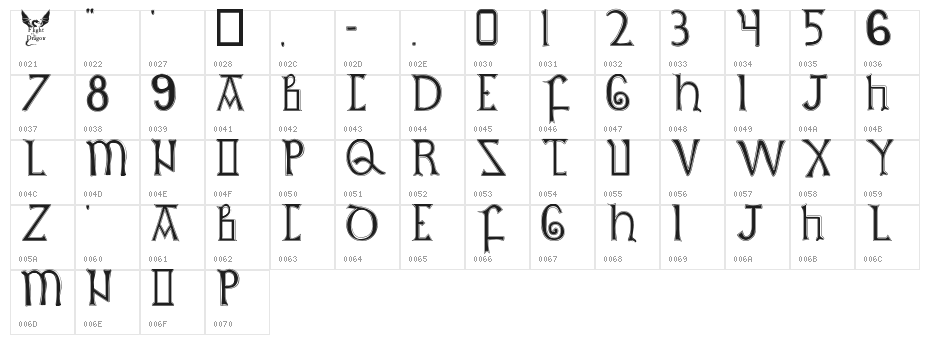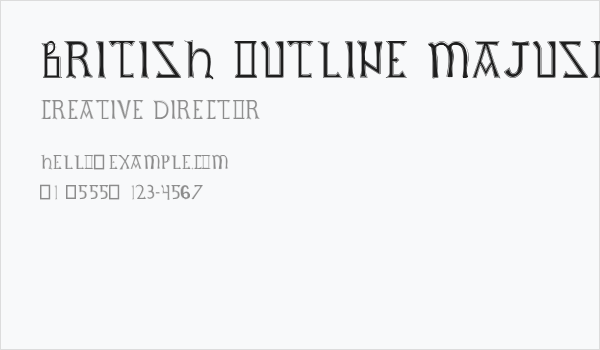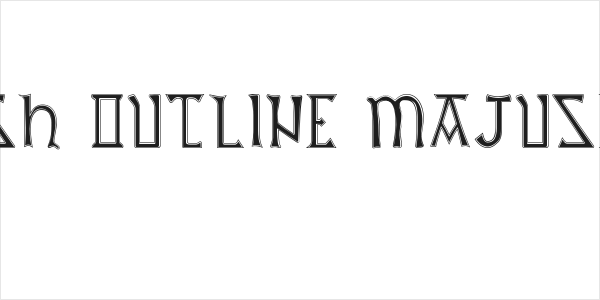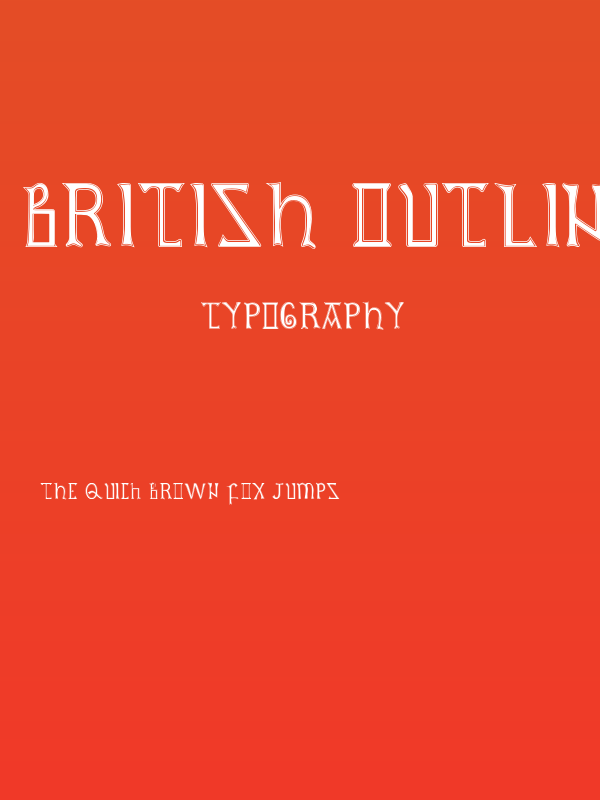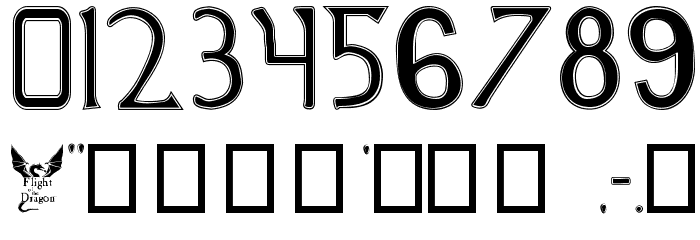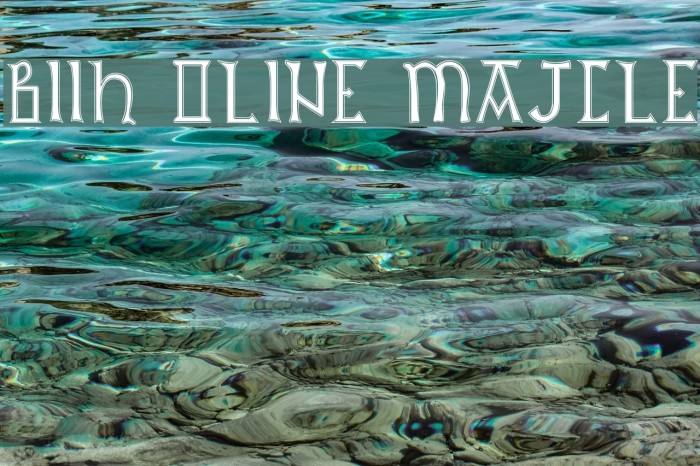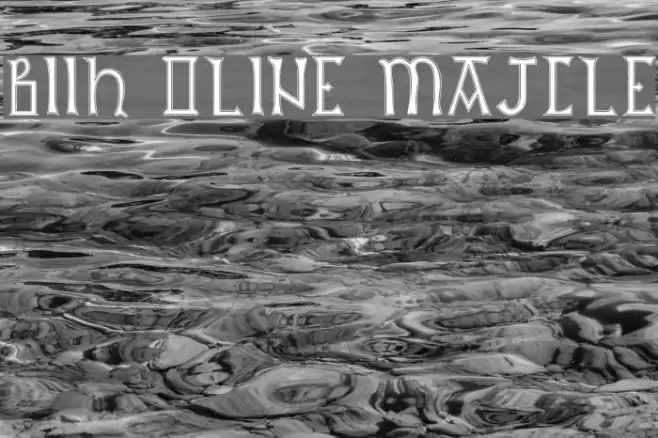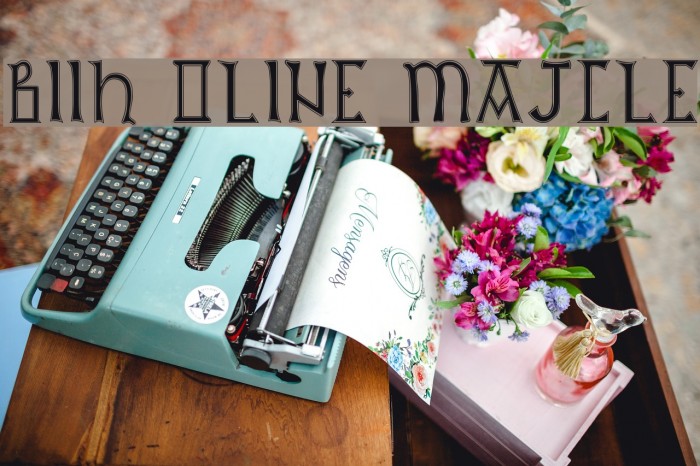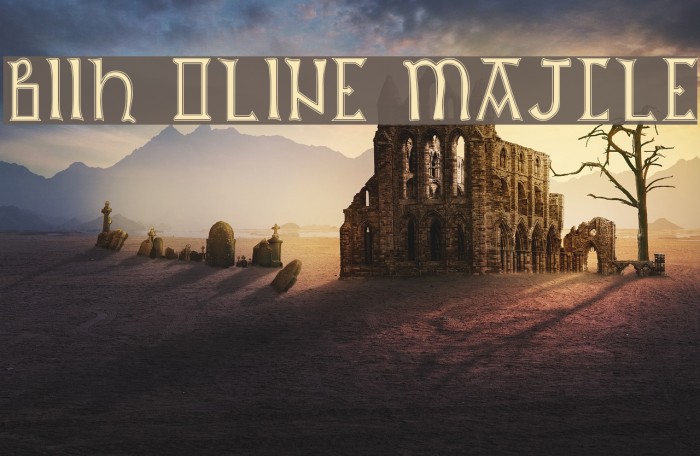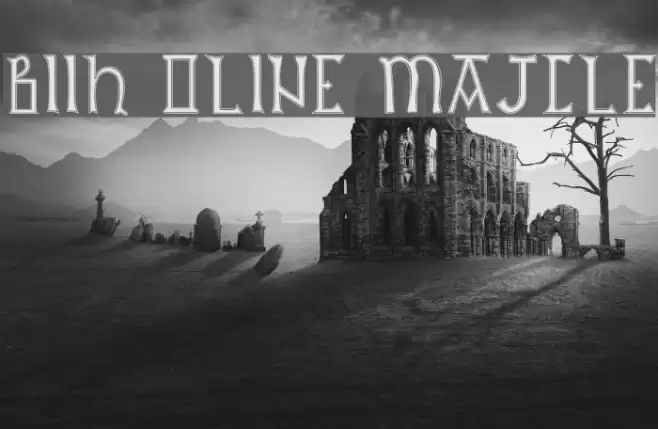
British Outline Majuscules Font
British Outline Majuscules Description
This font features an outline style with a distinct, decorative flair. Each character is crafted with a bold outline that gives it a striking appearance, reminiscent of medieval or gothic influences. The uppercase letters have unique embellishments, such as swirls and angular cuts, which add to the font's ornate nature. The numerals and special characters maintain this decorative theme, ensuring a cohesive look across all glyphs. The overall design is both eye-catching and sophisticated, making it suitable for projects that require a touch of elegance and historical charm.
| Proposed Projects | Ideal for use in historical-themed designs, book covers, posters, or any project requiring a medieval or gothic aesthetic. |